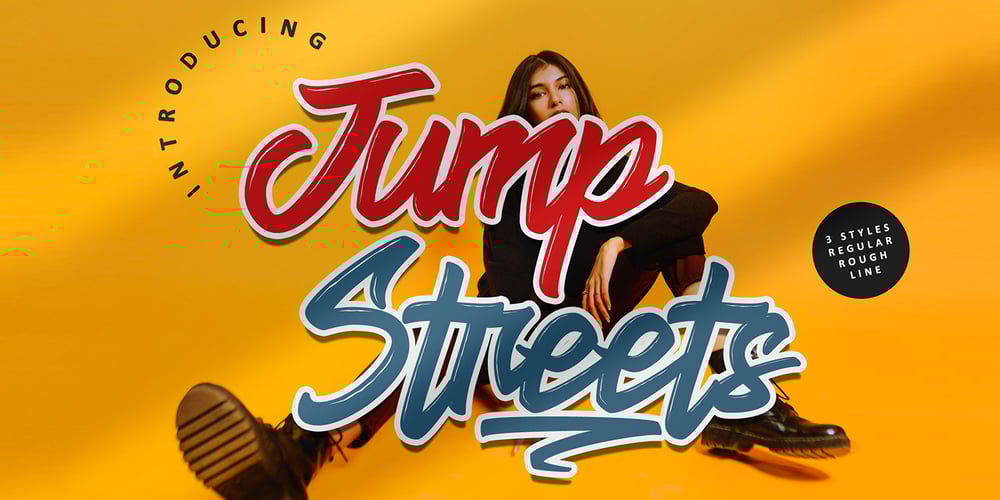
Jump Streets
Jump Streets font
Jump Streets Font Family was designed by Yahdi Kumala and published by Krakenbox Studio. Jump Streets contains 6 styles and family package options. Jump Streets is handcrafted script brush font. It has retro, vintage, and Cool styles. This font has 3 styles: Regular, Rough, & Line style. It’s a great font for fashion, apparel projects, signature, album cover, logo, branding, magazine, social media, & advertisements, but also works great for other projects.Highlight : Character Set Numerals and Punctuation (OpenType Standard) Accents (Multilingual characters) PUA Encode Thank you, Krakenbox